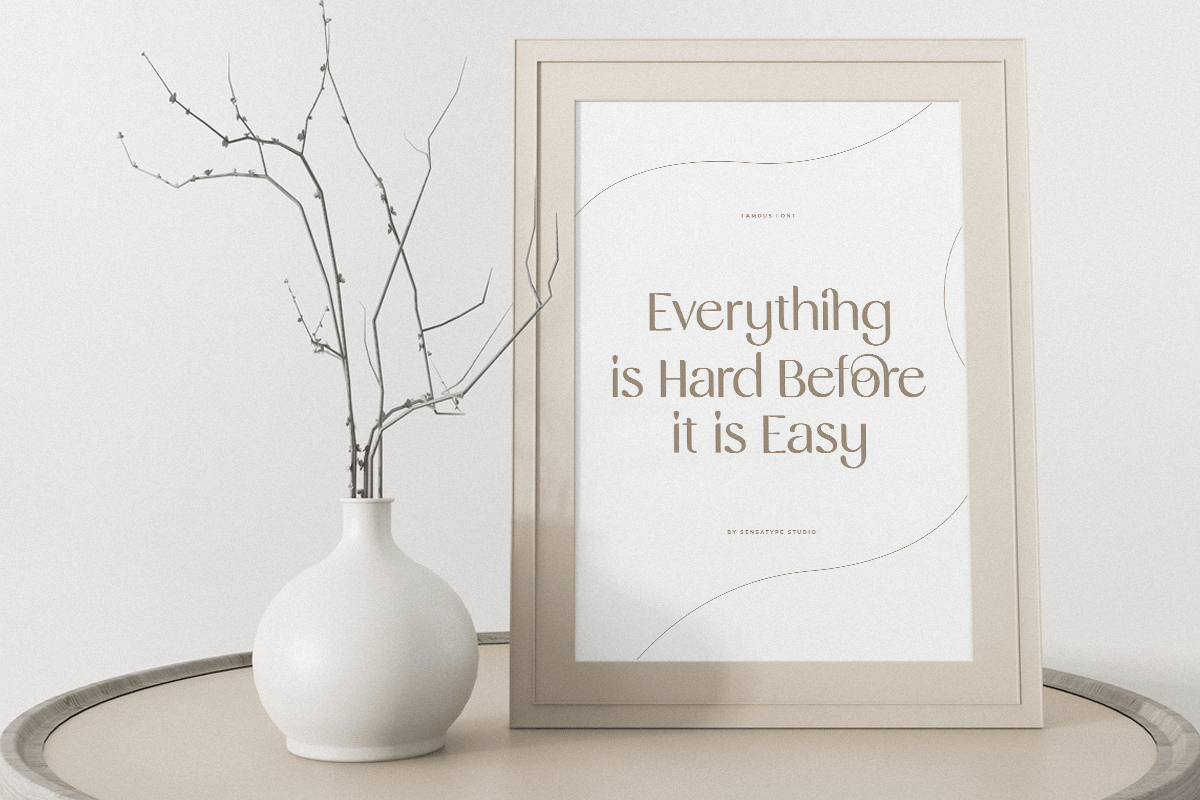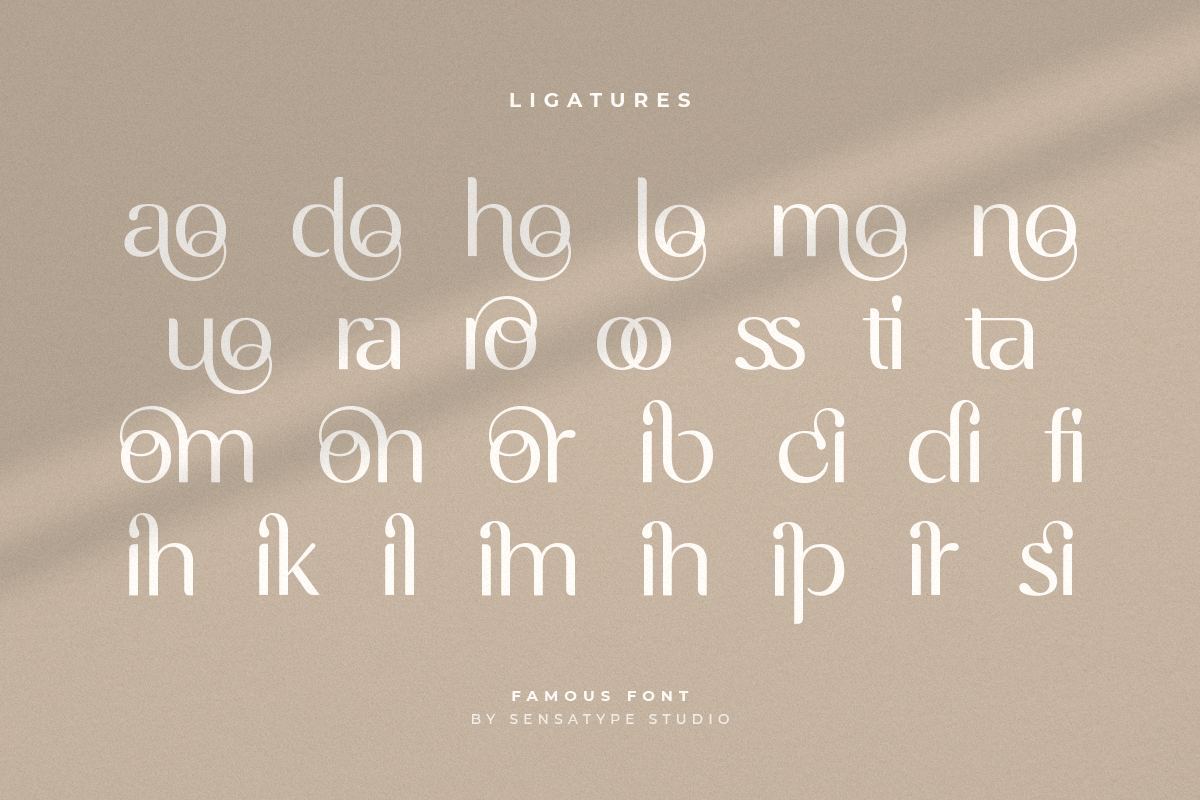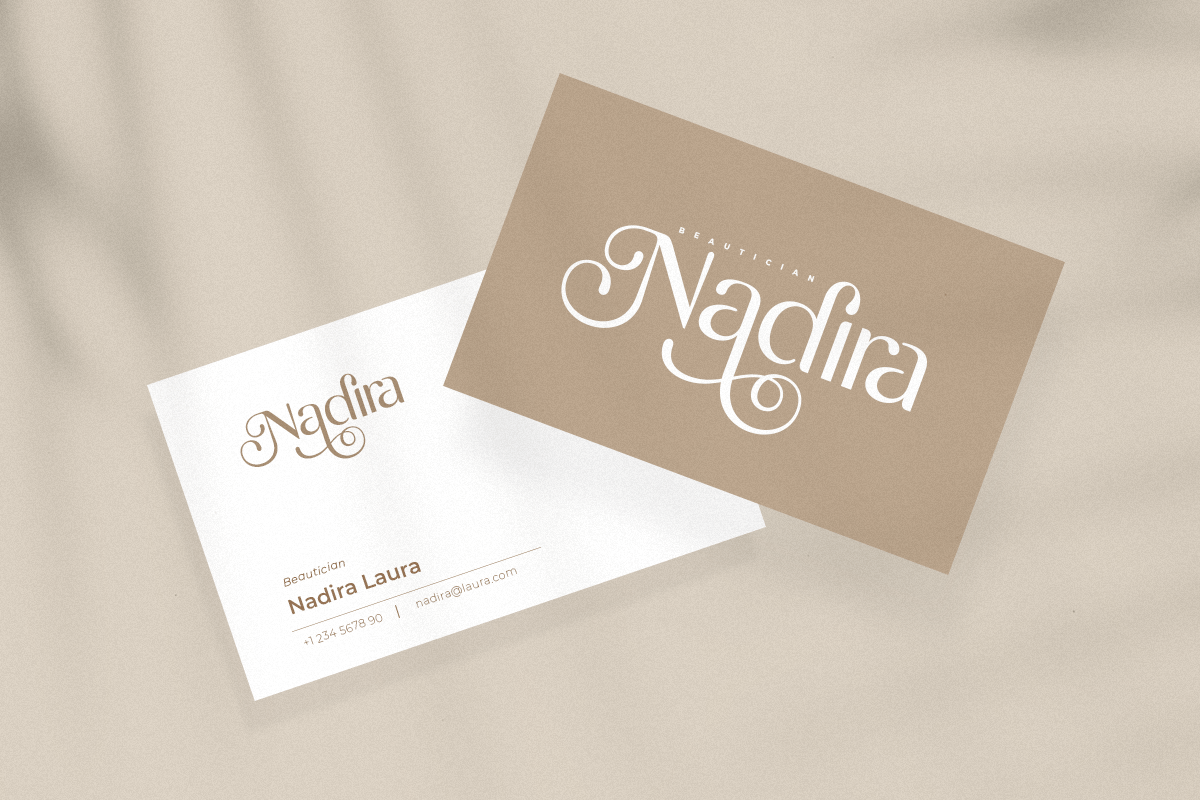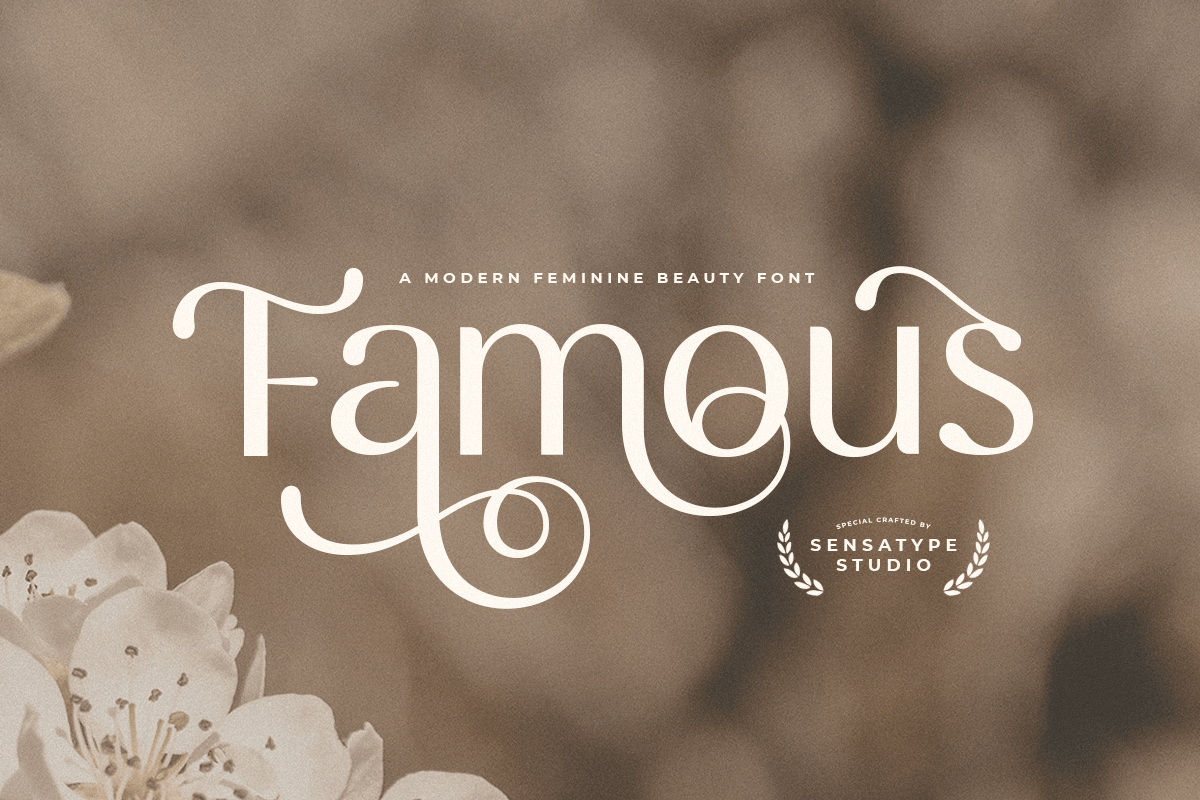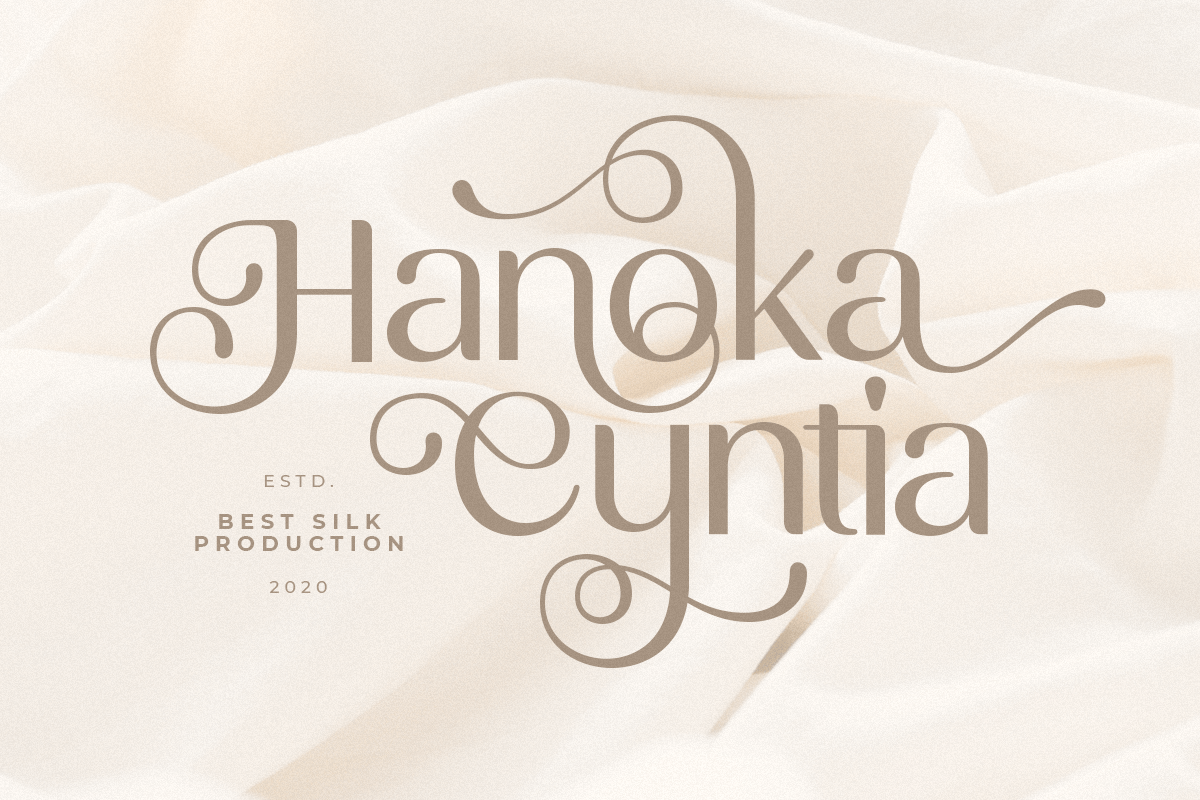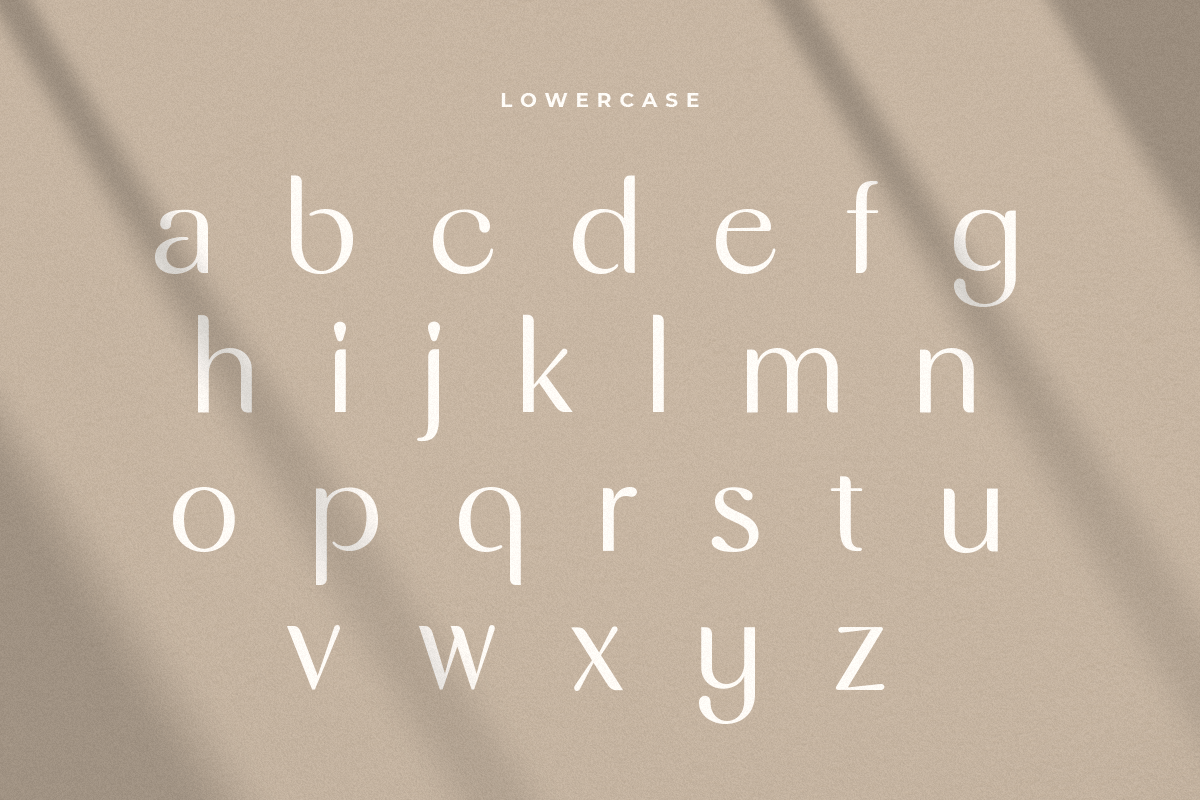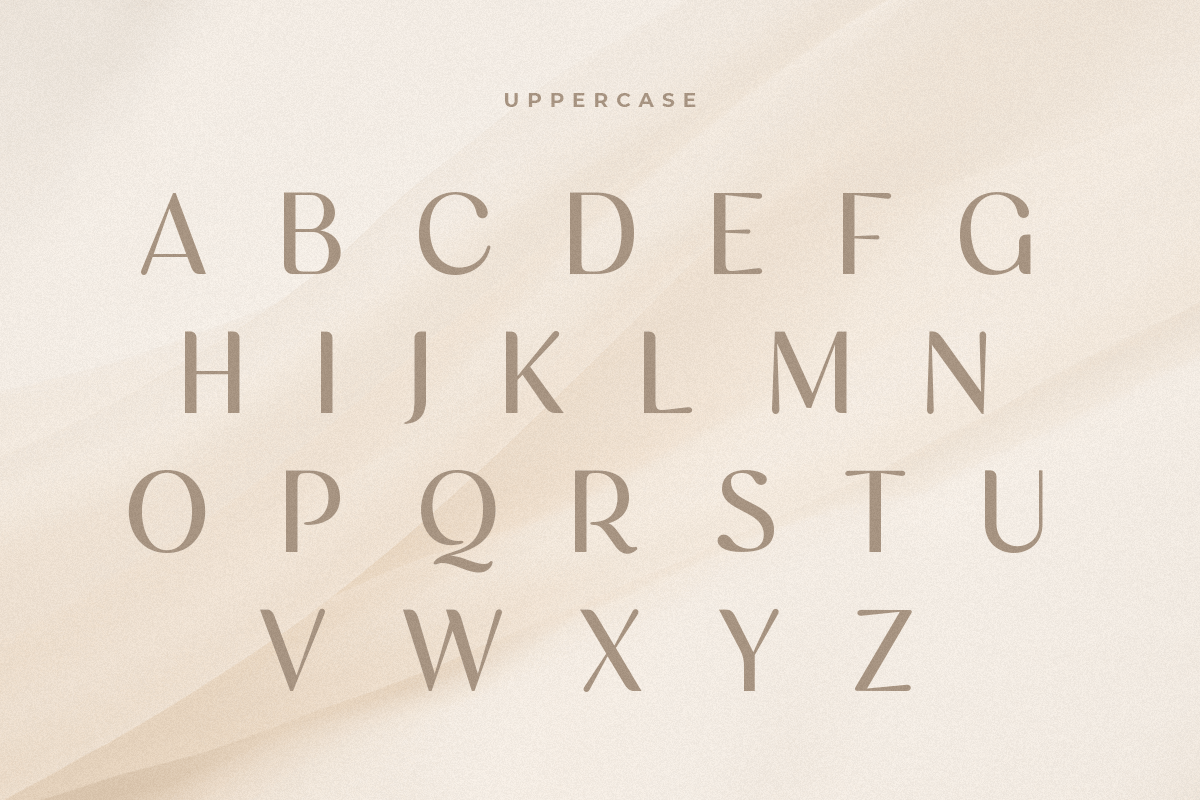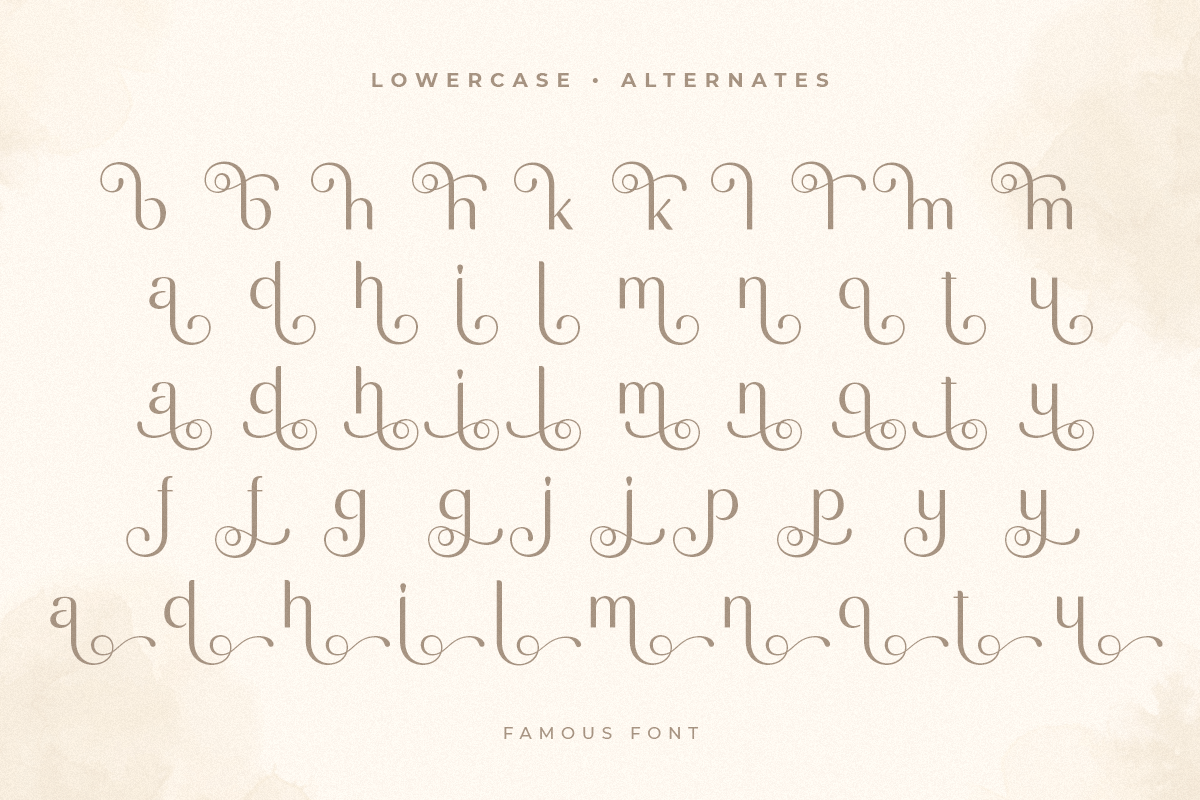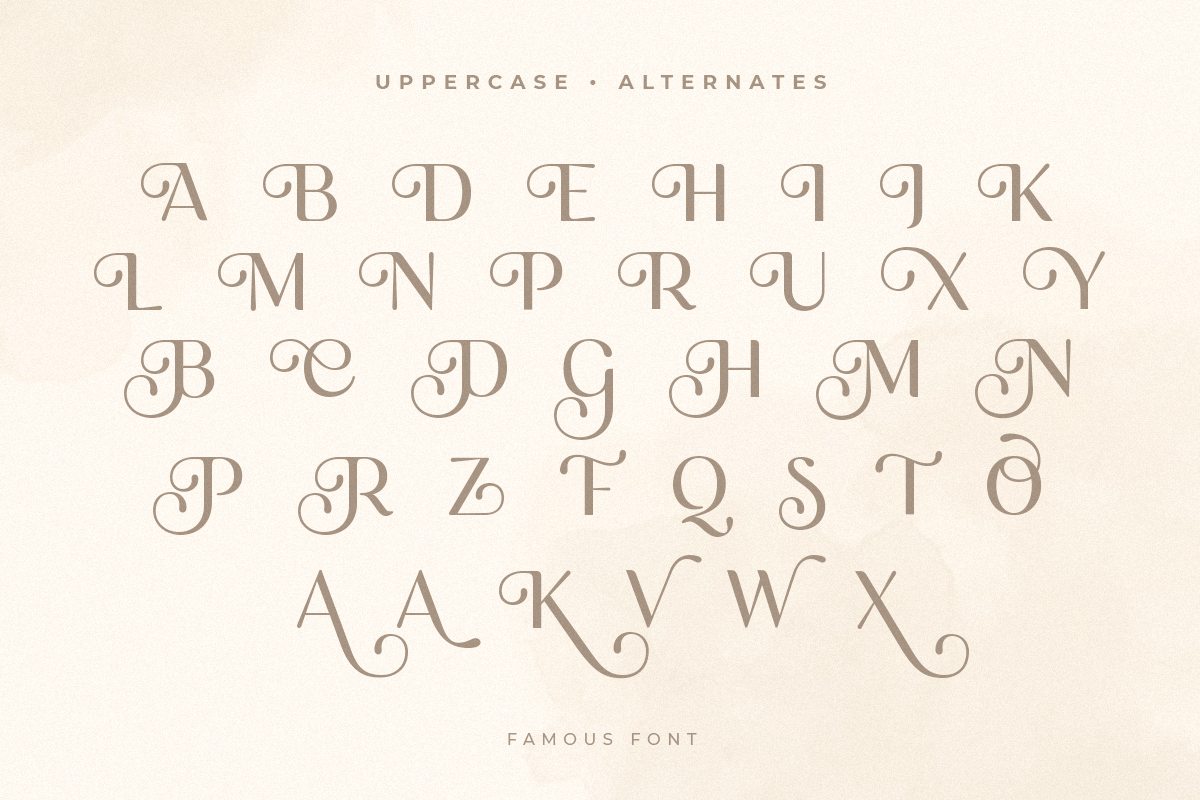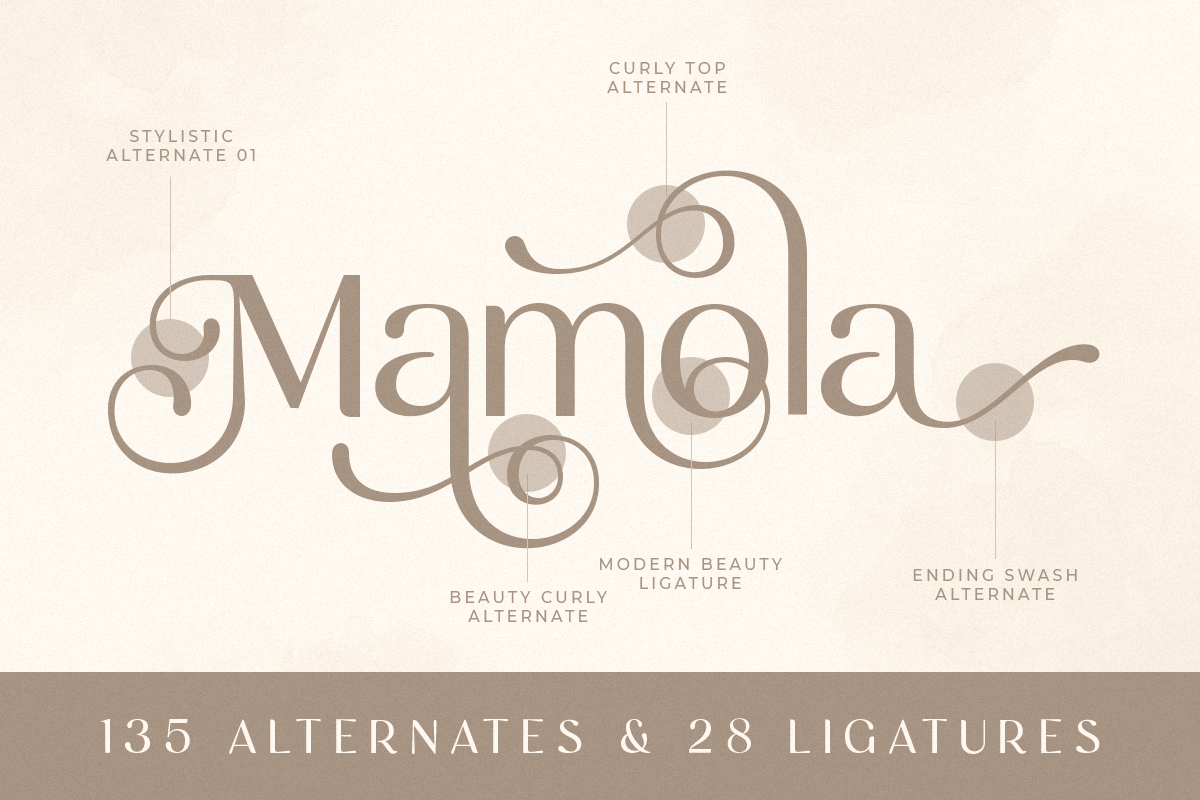
Famous - Modern Feminine Beauty Font
Famous is a modern feminine beauty font designed to bring elegance and sophistication to your creative projects. Ideal for branding, beauty products, logos, packaging, social media, and editorial design, it combines graceful curves with modern style.
With refined letterforms and high readability, Famous ensures your designs look classy and professional, making it perfect for digital and print applications.
Famous – Modern Feminine Beauty Font Features
- Elegant and feminine character set
- Perfect for beauty branding, logos, and stylish designs
- Uppercase, lowercase, numerals, and punctuation included
- OpenType features for extra versatility
- Multilingual support